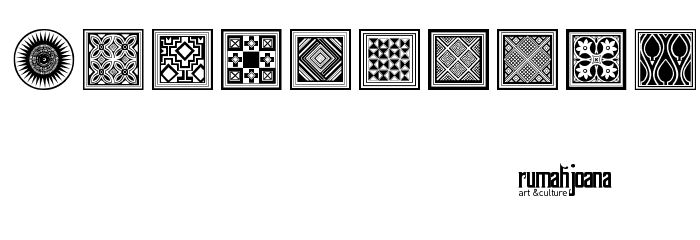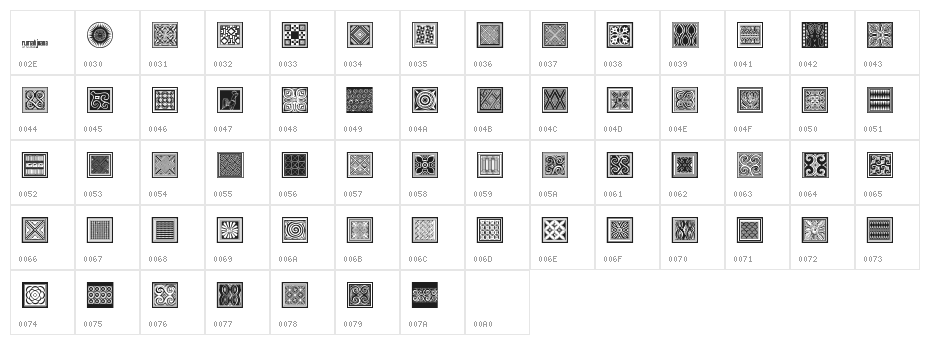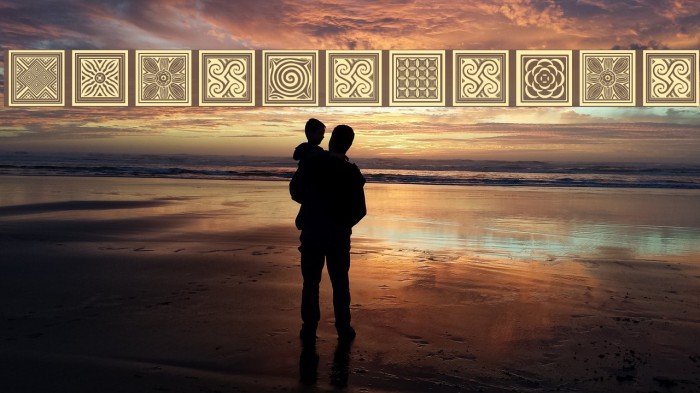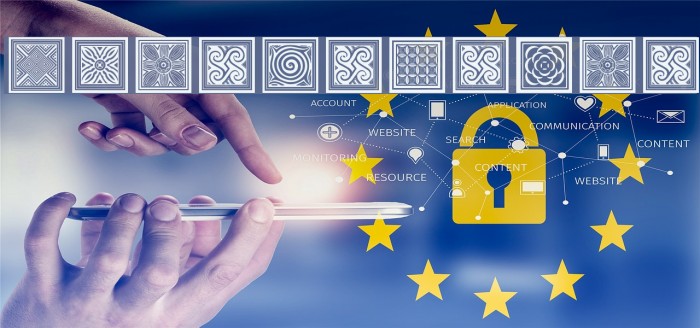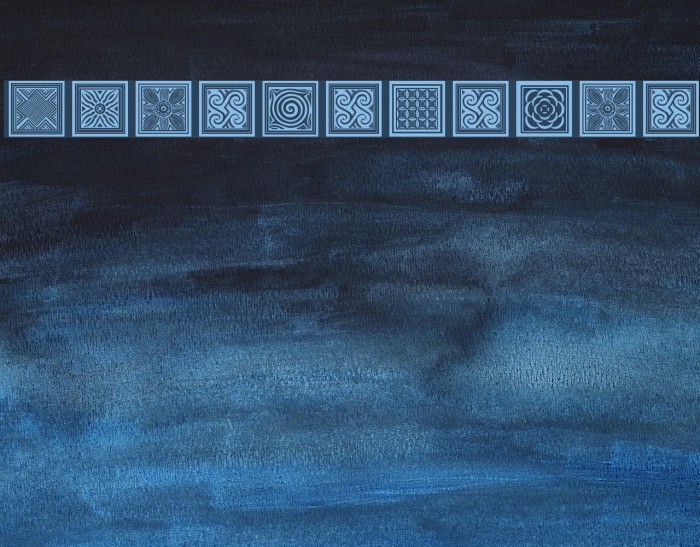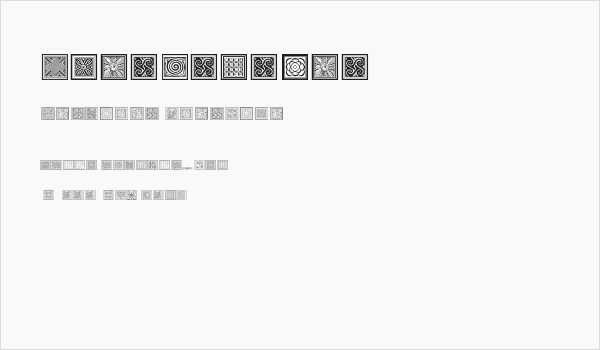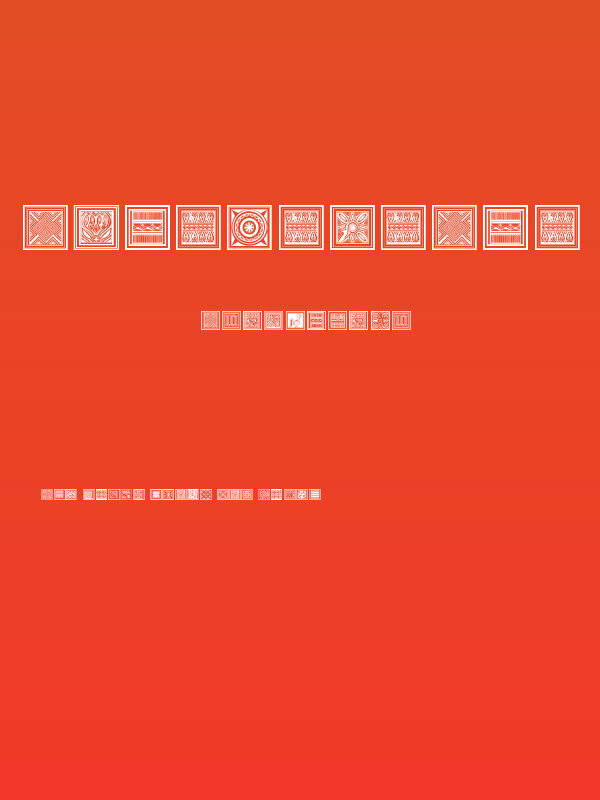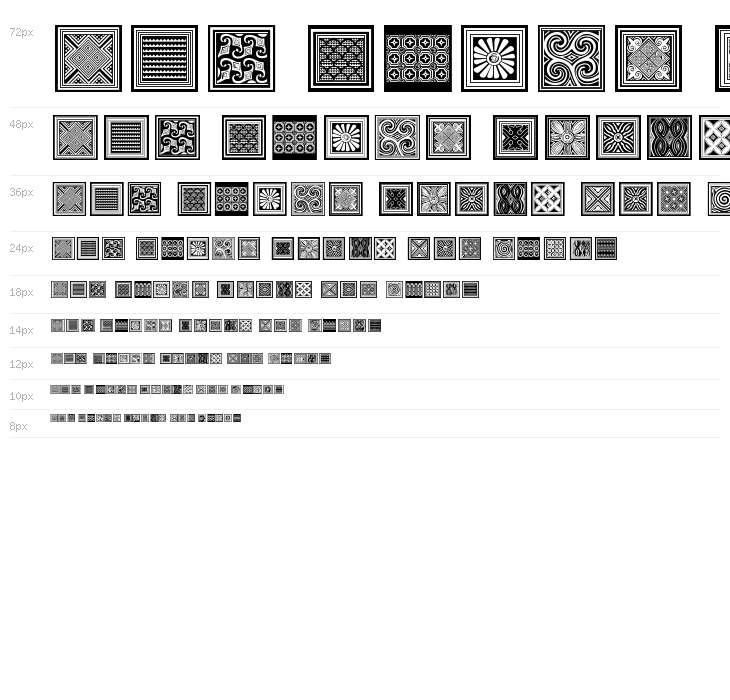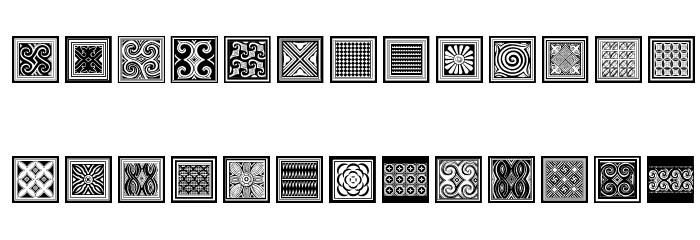
Torajamatra Font
Torajamatra Description
This image features a collection of intricate, geometric, and organic decorative motifs, each enclosed in a square frame. The designs are highly detailed, with a mix of symmetrical, repetitive, and abstract patterns, rendered in black and white. There are no alphabetic or numeric characters present, only ornamental designs.
| Overall Style | Decorative, Ethnic, Traditional |
| Use Case | Decorative elements, backgrounds, branding, art projects. |
| Proposed Projects | Textile design, wallpaper, tile patterns, branding, packaging, art prints. |